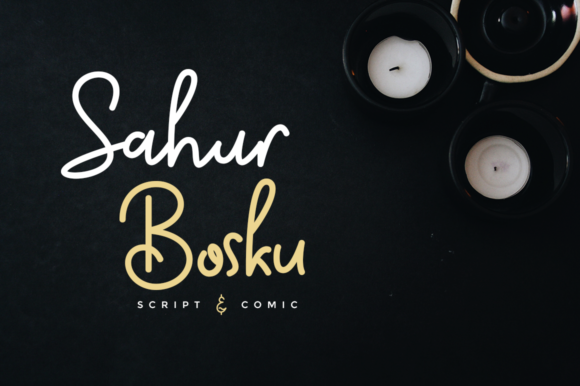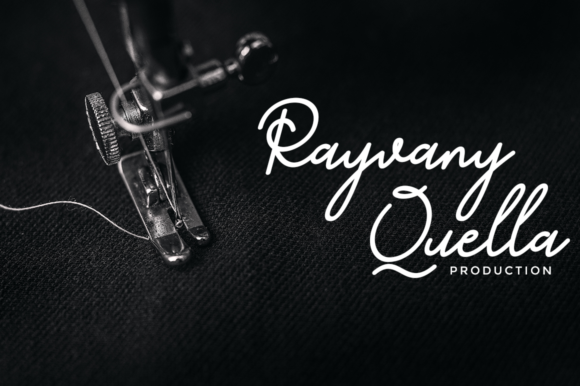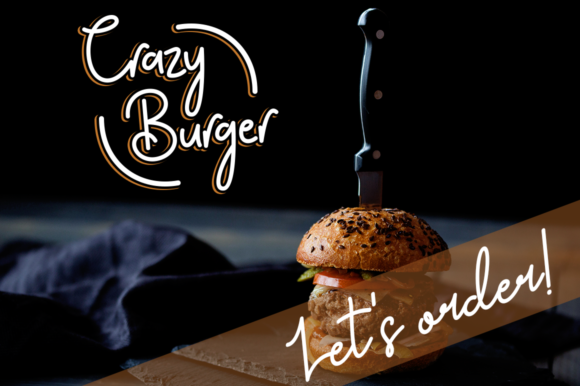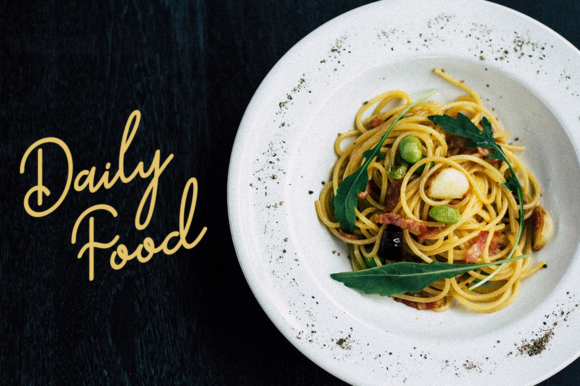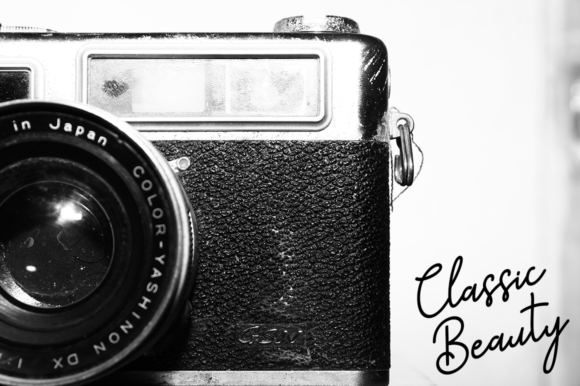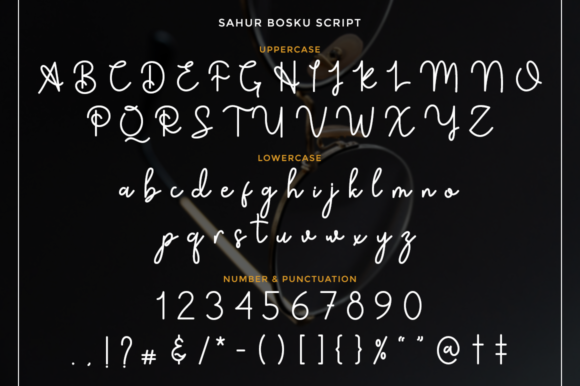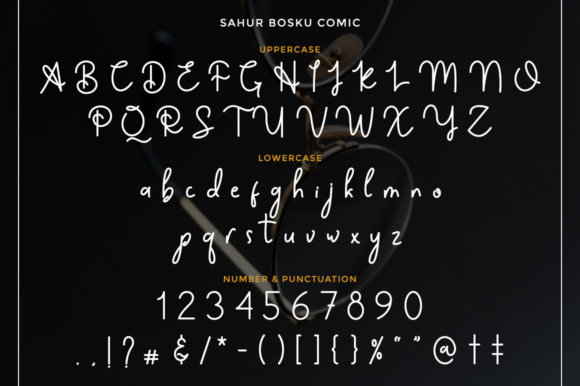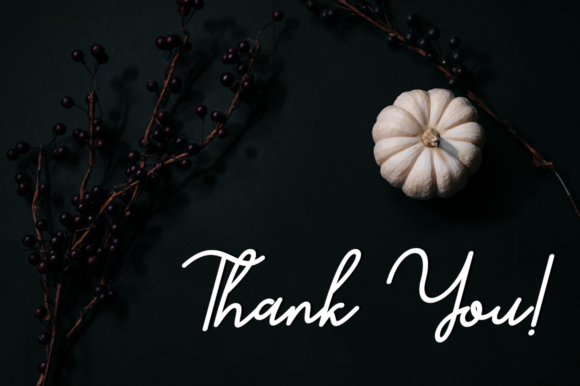
Sahur Bosku Font
About Sahur Bosku Font
Sahur Bosku results out of a stunning pairing of a brush pen and pencil that makes it look incredibly endearing and authentic. Use this gorgeous and unique Sahur Bosku to bring any DIY project to life!